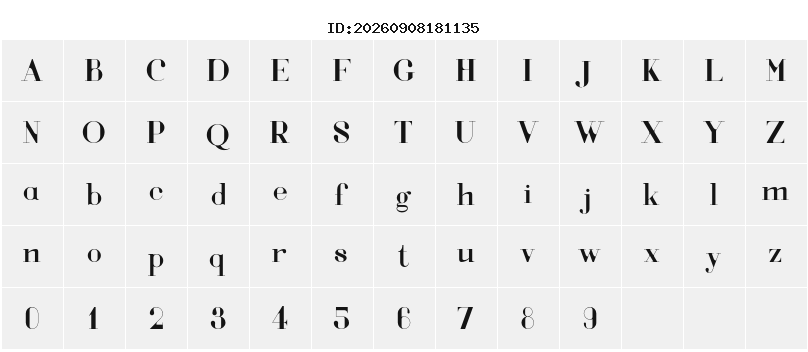
Voor Preview
• Font Name: Voor
• Font ID: NoHypeforMe: Voor: 2009
• Full Font Name: Voor
• PostScript Name: Voor
• Character Count: 227
• Designer: Renato Forster
• Manufacturer: No Hype for Me
About Voor.otf
Voor.otf is a modern, elegant sans-serif font designed for ultimate readability and visual harmony. Perfect for branding, headlines, web design, and print materials.